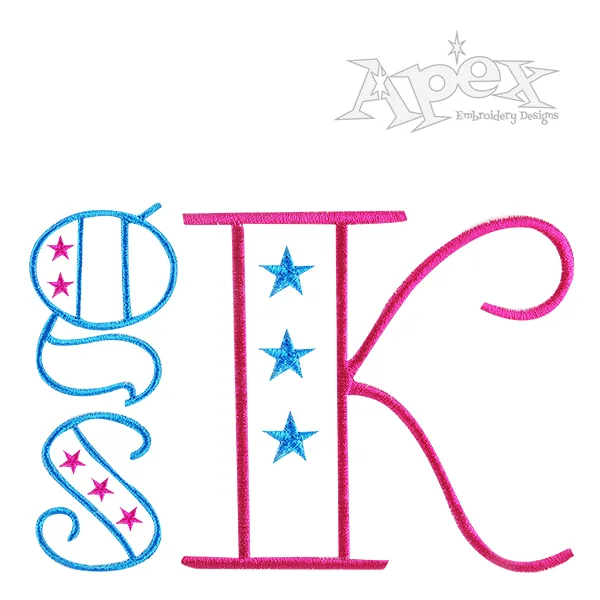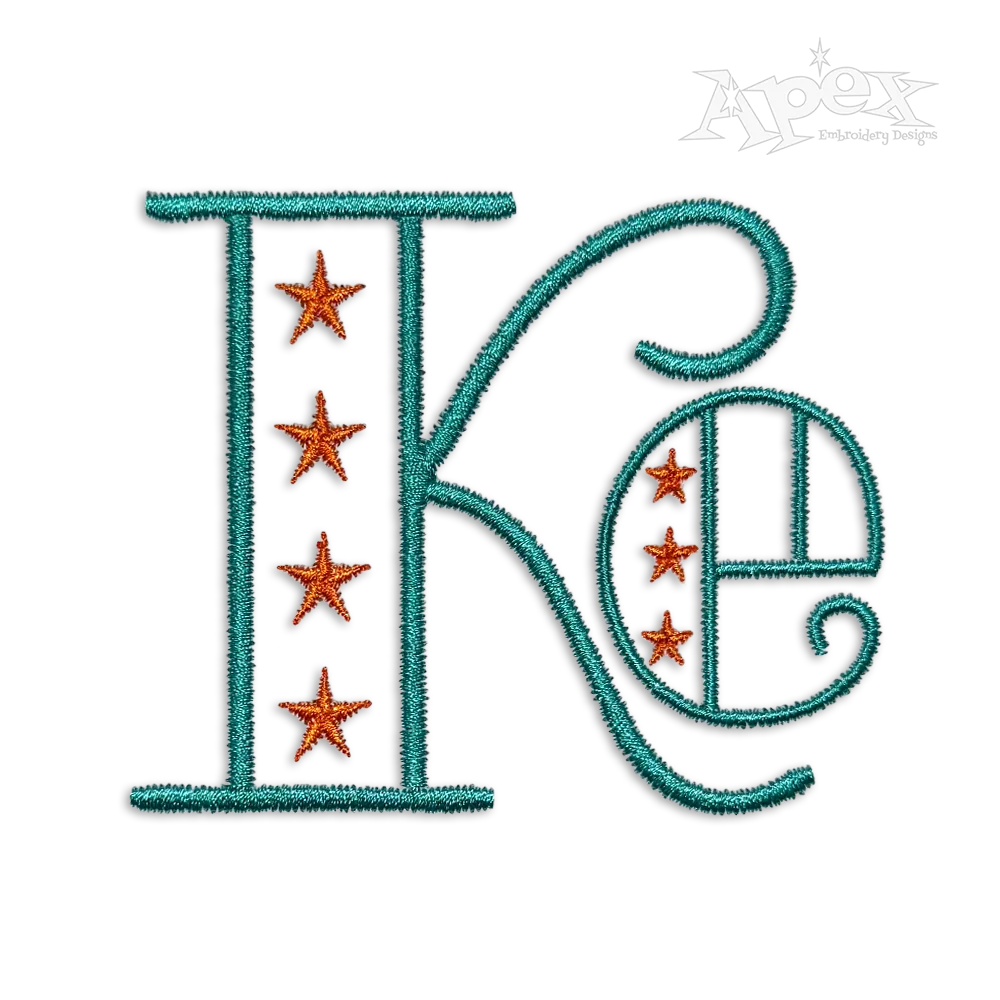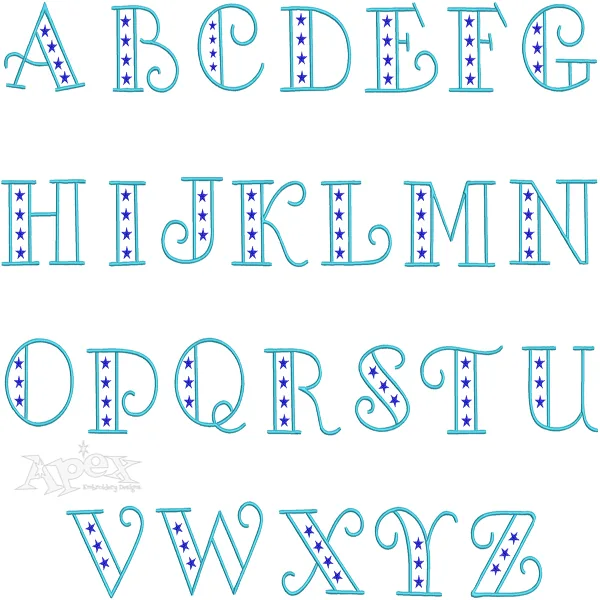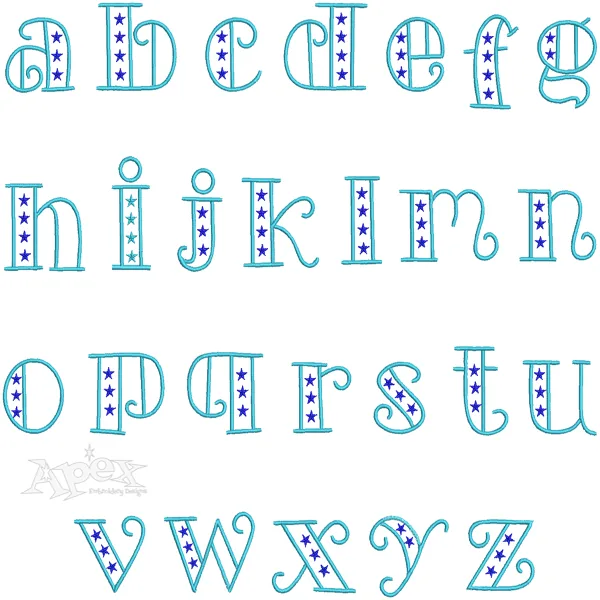
4th of July Embroidery Font
Conceived beneath the warm hum of midsummer parades, backyard barbecues, and twilight firework displays, the 4th of July Embroidery Font captures the vibrant nostalgia of classic Americana. As digitizers, we wanted to capture more than just a patriotic sentiment—we aimed to engineer a joyful, two-color typographic experience that honors heritage styling while performing flawlessly on modern embroidery machines. The contrasting two-color architecture delivers an instant pop of celebratory dimension, lending vintage charm and spirited elegance to holiday attire, heirloom table linens, and personalized summer accessories.
Project Ideas for 4th of July Embroidery Font
This festive satin-stitch alphabet lends itself beautifully to a broad spectrum of seasonal celebrations, heirloom textiles, and bespoke gifting:
- Luxury Table Linens & Cocktail Napkins: Embroider crisp hemstitched linen napkins and runners in contrasting scarlet and navy for refined Fourth of July dinner parties.
- Heavyweight Canvas Totes & Boat Bags: Stitch bold, high-contrast family initials onto beach totes, weekend market bags, and picnic gear.
- Bespoke Resort Wear & Summer Apparel: Personalize seersucker shirts, denim jackets, sun hats, and children’s summer rompers for holiday outings and parades.
- Patriotic Heirloom Pillows & Throws: Accent porch benches and patio loungers with customized holiday cushions that return year after year as treasured family traditions.
- Personalized Hostess Gifting: Create bespoke bar towels, wine sleeves, and chef aprons as memorable summer host and hostess tokens.
The distinctive two-tone profile of this alphabet creates visual interest that commands attention across varied item orientations:
- Corner Diagonal: Position a single 3-inch capital at a 45-degree angle across the lower corner of linen dinner napkins or tea towels to achieve a classic, bespoke finish.
- Center Chest: Align monograms or celebratory phrases across the direct center of summer t-shirts, sweatshirts, and children's knitwear for a vintage athletic look.
- Pocket Flank & Tote Bands: Place initials directly centered above a patch pocket or centered between tote strap webbing for balanced, structural appeal.
- Border Alignments: Arrange names or holiday titles along the edge of outdoor table runners and picnic blankets for an elongated, celebratory focal point.
4th of July Embroidery Font Craft & Letterform Details
Digitizing a two-color satin alphabet requires exacting precision to maintain crisp edge registration without creating rigid, bulletproof thread buildup. Each character in this collection has been digitized with calibrated underlay foundations that stabilize the base fabric, allowing the dual satin layers to lock seamlessly together with razor-sharp margins. The curves sweep smoothly into weighted stems, while the transitions between colors are synchronized with gentle compensation to ensure that no unsightly gaps appear during stitching.
The stroke architecture balances bold, confident serifs with fluid turns, capturing the buoyant energy of mid-century sign painting and patriotic banner craft. Whether rendered in traditional deep navy and crimson, or translated into monochromatic coastal tones for understated luxury, the stitch paths glide effortlessly from stroke to stroke, leaving behind a polished, heirloom-quality finish with radiant sheen.